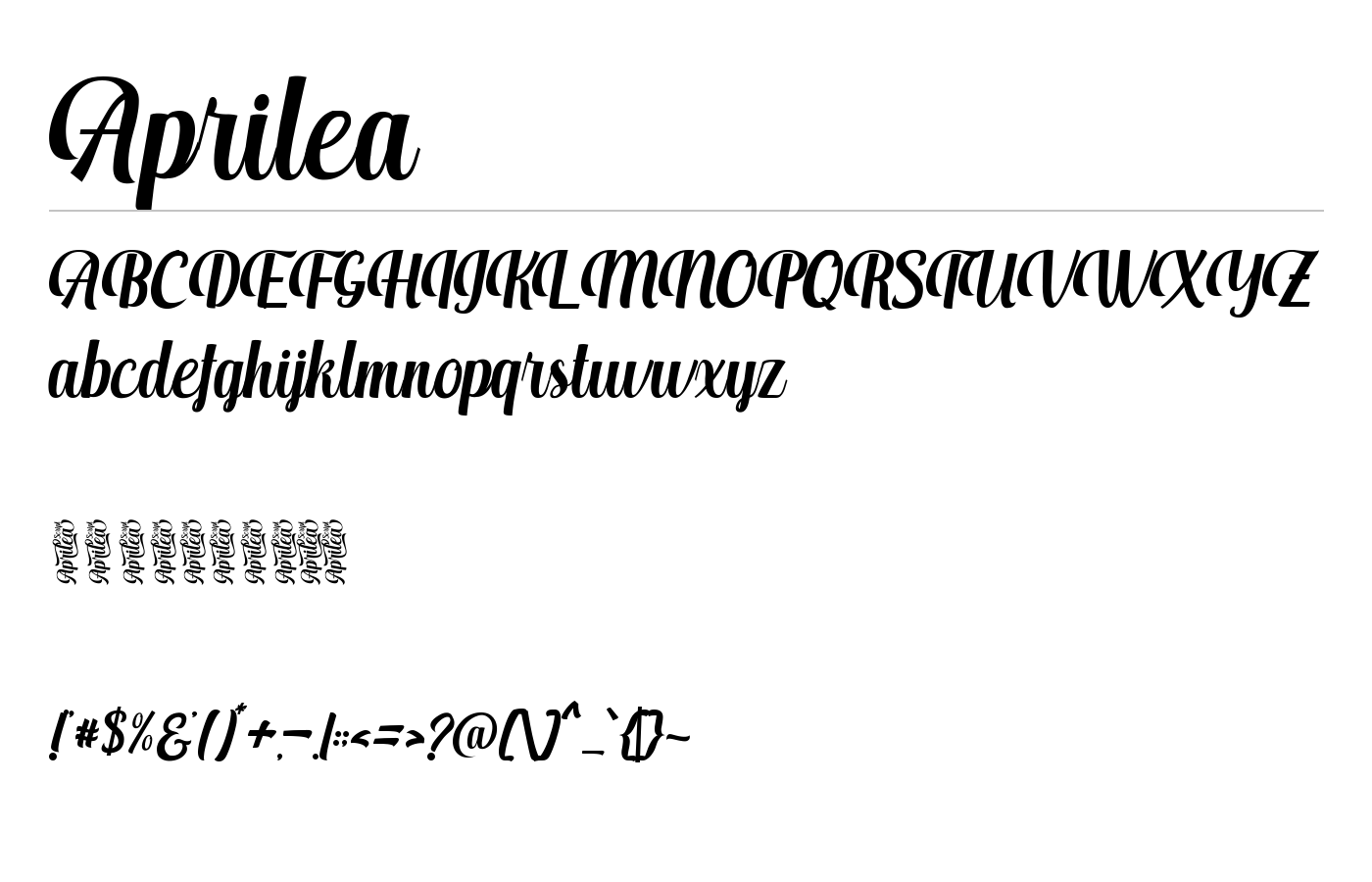
Aprilea is a stylish script font featuring elegant, flowing letterforms with a medium weight and a slightly condensed width, giving it a sophisticated yet approachable feel. Its smooth, sharp strokes and distinctive uppercase characters make it perfect for fashion, beauty branding, and elegant editorial use where a touch of modern vintage charm is desired. This font works especially well for headlines and logos that need a refined, graceful personality without sacrificing readability.
Aprilea Font
About Aprilea Font